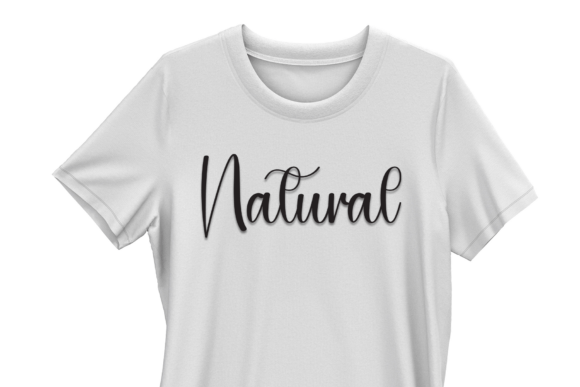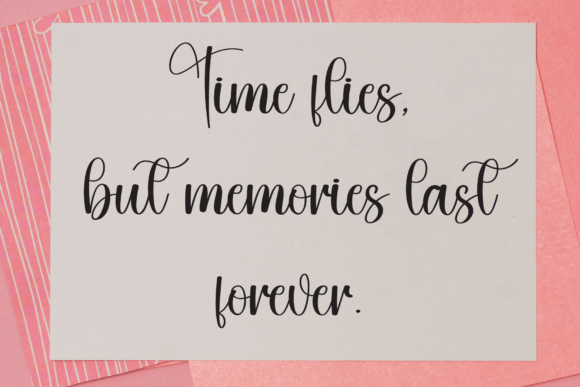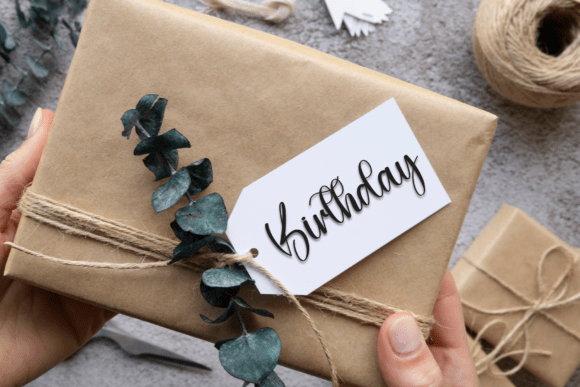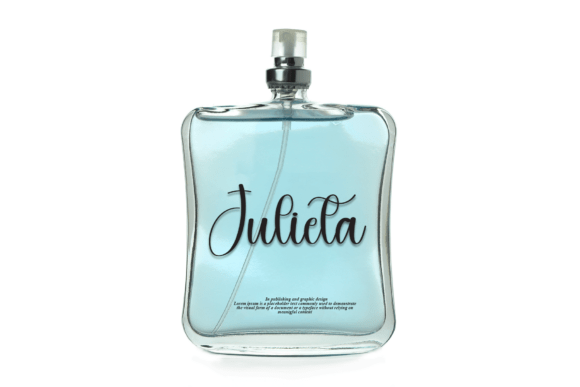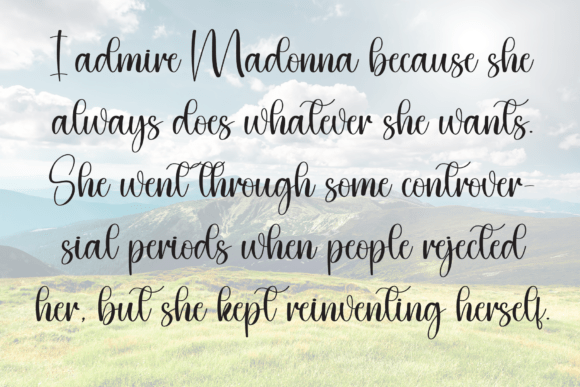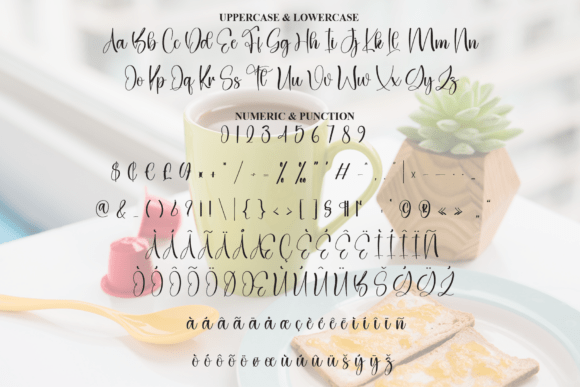
Introducing Breakday Font: The Perfect Blend of Freshness and Coziness
In the world of typography, fonts play a crucial role in setting the tone and personality of a brand or design. For designers and crafters looking for a font that exudes warmth, casual charm, and a touch of morning vibes, Breakday Font is an excellent choice. This fresh and cozy handwritten font is ideal for a variety of creative projects, including food blogs, quote posts, packaging, and planners.
The Characteristics of Breakday Font
Breakday Font boasts a unique blend of characteristics that make it stand out from other fonts. Its handwritten style gives it a personal and approachable feel, perfect for designs that require a touch of warmth and personality. The font’s casual charm makes it suitable for projects that require a relaxed and laid-back tone, while its fresh and modern look ensures it stays relevant and on-trend.
Ideal Uses for Breakday Font
Breakday Font is a versatile font that can be used in a variety of creative projects. Some of the ideal uses for this font include:
- Food Blogs: Breakday Font is perfect for food bloggers who want to add a touch of warmth and personality to their recipes and cooking stories. The font’s casual charm and handwritten style make it ideal for creating engaging and appetizing content.
- Quote Posts: For designers and social media enthusiasts looking to create inspiring and motivational quote posts, Breakday Font is an excellent choice. The font’s modern and fresh look ensures that quotes stand out and grab the reader’s attention.
- Packaging: Breakday Font can add a touch of personality to packaging designs, making products stand out on store shelves. The font’s casual charm and handwritten style make it perfect for creating labels, tags, and other packaging materials.
- Planners: For crafters and designers creating planners, journals, and other stationery items, Breakday Font is an excellent choice. The font’s fresh and modern look ensures that designs stay organized and visually appealing.
Benefits of Using Breakday Font
Using Breakday Font in your designs offers several benefits, including:
- Unique Personality: Breakday Font brings a unique personality to your designs, setting them apart from others.
- Emotional Connection: The font’s casual charm and handwritten style create an emotional connection with readers, making your designs more relatable and engaging.
- Versatility: Breakday Font is a versatile font that can be used in a variety of creative projects, from digital designs to print materials.
- Ease of Use: The font is easy to read and works well in both large and small sizes, making it perfect for a range of applications.
Tips for Using Breakday Font Effectively
To get the most out of Breakday Font, here are some tips for using it effectively:
- Pair it with Other Fonts: Breakday Font pairs well with other fonts, including sans-serif and serif fonts. Experiment with different combinations to find the perfect look for your design.
- Use it in Headings and Titles: Breakday Font is perfect for headings and titles, where its casual charm and handwritten style can make a big impact.
- Experiment with Colors: Breakday Font works well with a range of colors, from bright and bold to soft and pastel. Experiment with different colors to find the perfect look for your design.
In conclusion, Breakday Font is a fresh and cozy handwritten font that brings warmth and personality to designs. Its casual charm, modern look, and versatility make it perfect for a range of creative projects, from food blogs and quote posts to packaging and planners. With its unique personality, emotional connection, and ease of use, Breakday Font is an excellent choice for designers and crafters looking to add a touch of morning vibes to their designs.